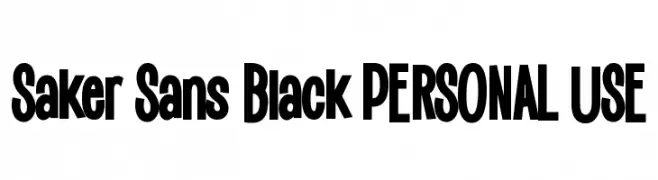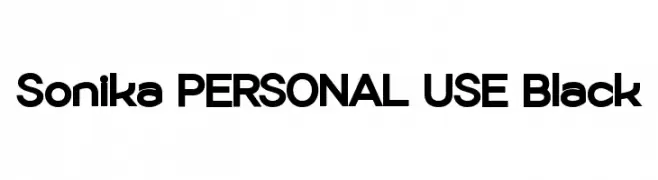
A bold, expressive script font with a dynamic, handwritten style.
A bold, handwritten font with a lively and energetic style.
An elegant, flowing script font with ornate uppercase and cohesive lowercase letters.
A bold, modern sans-serif font with thick, uniform strokes.
A bold, modern sans-serif font with strong, clean lines and excellent legibility.
A bold, modern typeface with uniform strokes and a strong presence.
A clean, modern sans-serif font with geometric letterforms and consistent stroke weight.
A modern, sans-serif font with uniform strokes and excellent readability.
A clean, modern sans-serif font with balanced proportions and consistent stroke width.
A clean, modern sans-serif font with semi-bold weight and uniform stroke width.
An elegant script font with flowing lines and decorative swashes.
Elegant cursive script font.
A bold, playful handwritten font with thick, rounded characters.
Elegant cursive font with fluid, connected strokes and a refined appearance.
A playful, casual handwritten font with rounded, uniform strokes.
A dynamic script font with sharp, angular strokes and fluid connections.
Bold, graffiti-inspired font with angular, geometric shapes and a 3D effect.
A bold, angular font with a modern and edgy style.
A bold, hand-drawn marker-style font with a dynamic and informal appearance.
A classic blackletter font with sharp, angular lines and ornate detailing.
A bold, outlined italic font with a modern and dynamic style.
A bold, outlined font with a modern and clean aesthetic.
A bold, italic font with strong strokes and a dynamic presence.
A bold, modern font with a vintage touch, featuring strong, consistent characters.
A bold, graffiti-inspired font with sharp, angular strokes.
A bold, cursive script font with elegant, flowing strokes.
A flowing, cursive font with elegant, connected letters and artistic flourishes.
A graceful, flowing script font with elegant, cursive strokes.
A bold, jagged font with a gothic, eerie style.
An edgy, bone-like font with intricate, jagged details.
A spooky, bone-like font with jagged edges and a dripping effect.